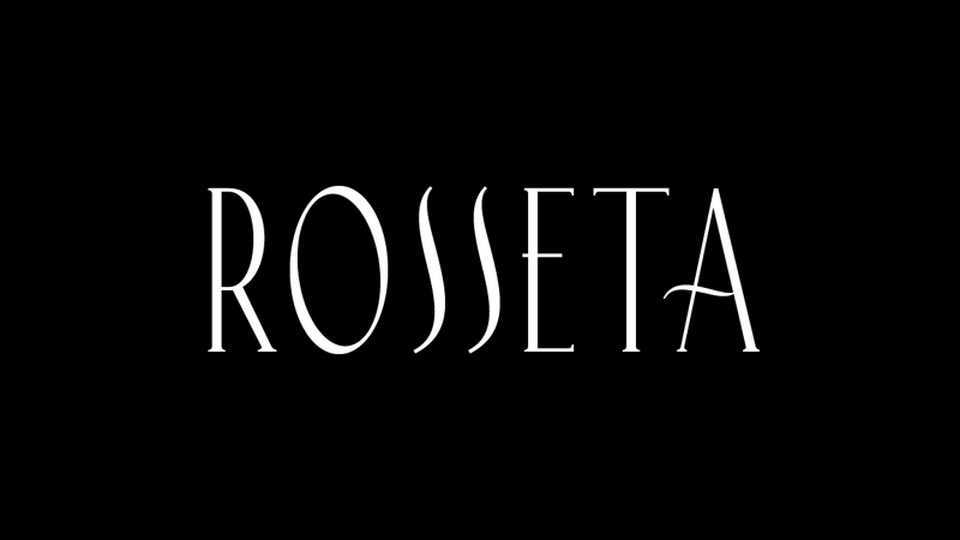
Download Rosseta font, a beautiful vintage sans serif typeface with an elegant silhouette. Rosetta looks perfect for logos, branding, weddings, fashion and apparel, social media and feminine designs.
Designer: Angin Studio